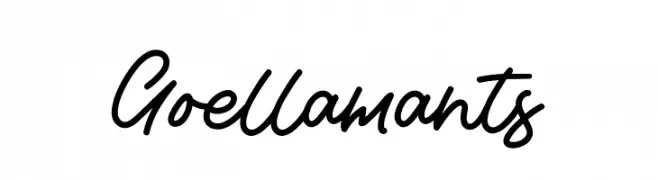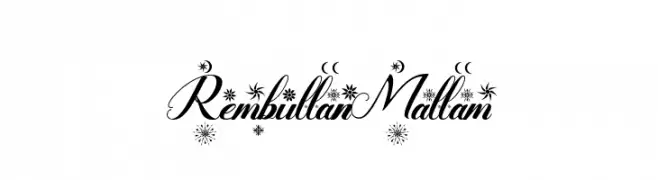
An elegant script font with graceful curves and luxurious swashes.
A bold, hand-painted style font with rough, textured edges and sharp angles.
A bold, hand-drawn font with dynamic and irregular strokes.
A bold, expressive script font with a hand-drawn, dynamic style.
An elegant, decorative script font with celestial motifs.
A bold, geometric font with strong, uniform strokes and a commanding presence.
A fluid and dynamic script font with a handwritten appearance.
An elegant script font with flowing, decorative swashes and high contrast strokes.
An elegant script font with intricate swirls and flourishes, perfect for luxurious and refined projects.
An elegant script font with ornate flourishes and a modern calligraphic style.